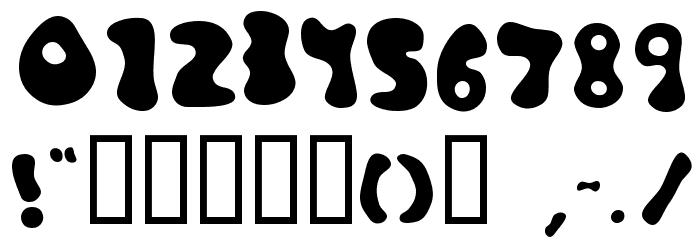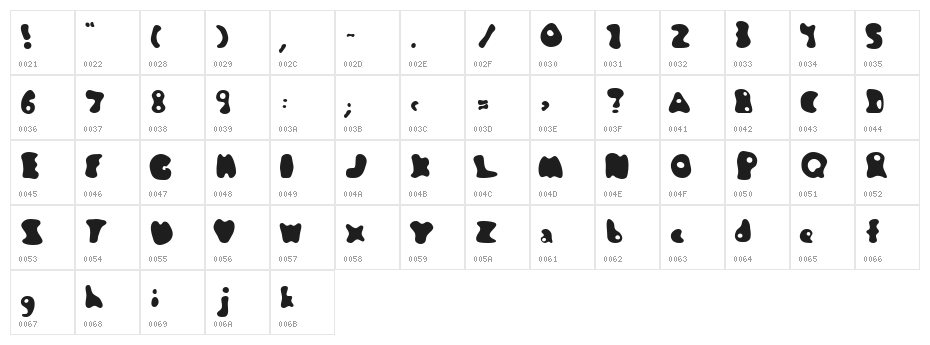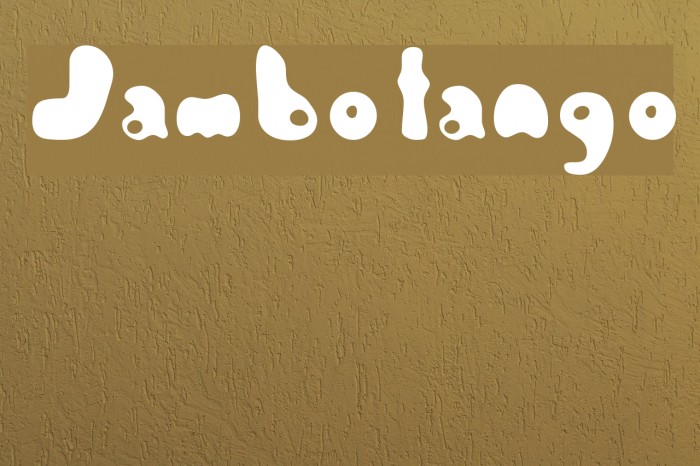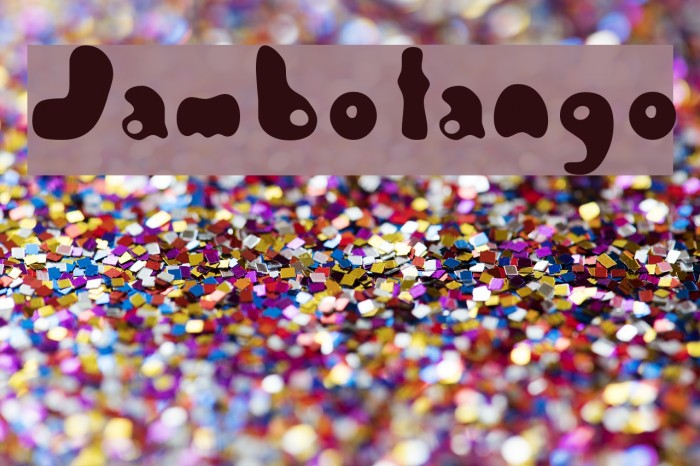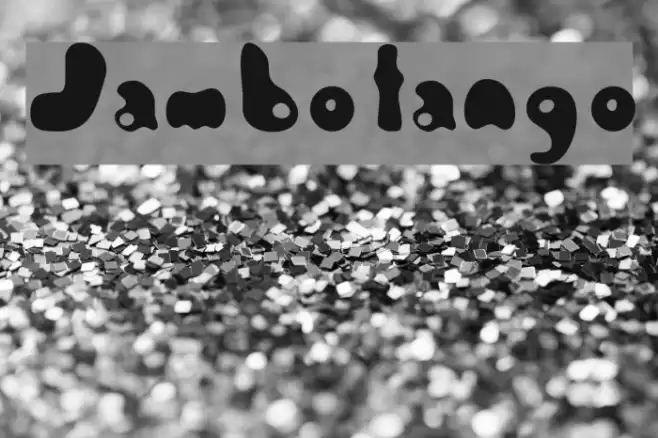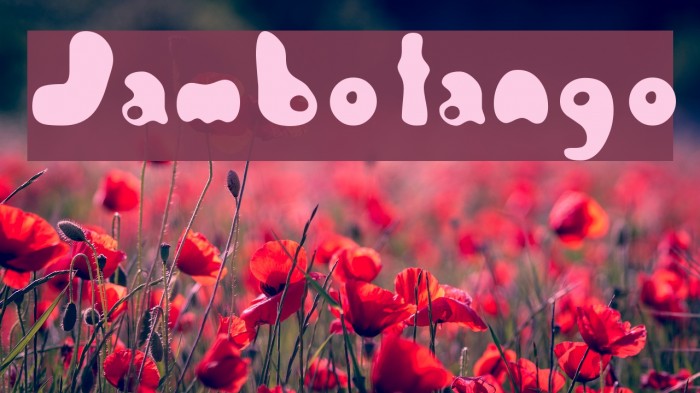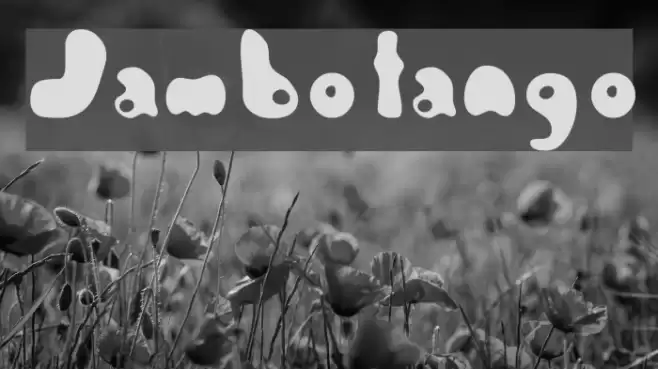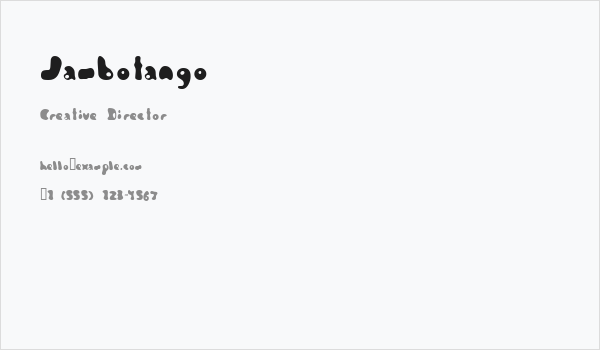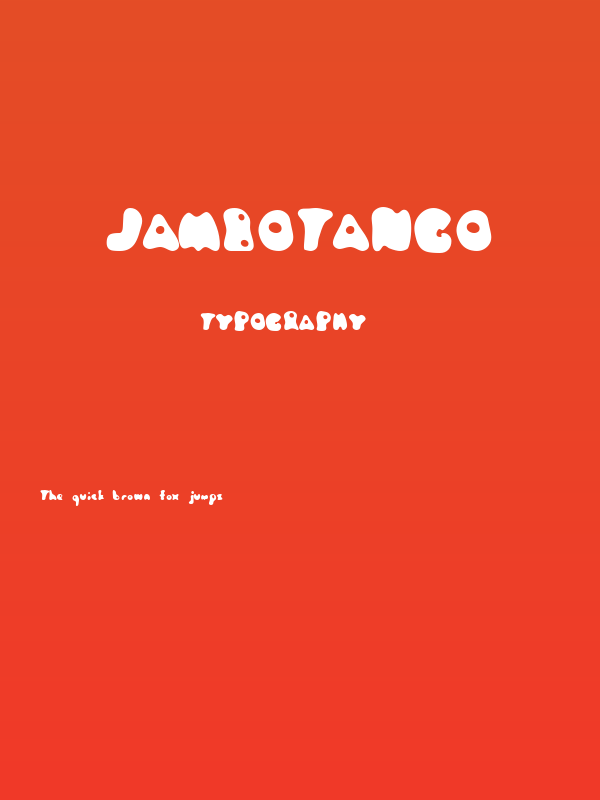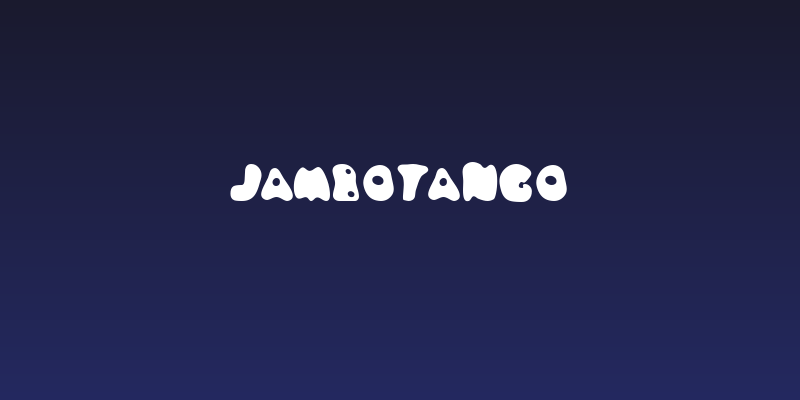
Jambotango Font
Jambotango Description
This playful and bold font features an organic, blob-like design with irregular shapes and rounded edges. Each character appears to be hand-drawn, giving it a whimsical and informal appearance. The letters have a consistent thickness, contributing to a uniform look despite their unconventional forms. The font's unique style makes it stand out, with its quirky and fun aesthetic. It is highly decorative and not suited for body text, but perfect for creative projects where a touch of humor and creativity is desired. The numbers and special characters maintain the same playful style, ensuring consistency across all elements.